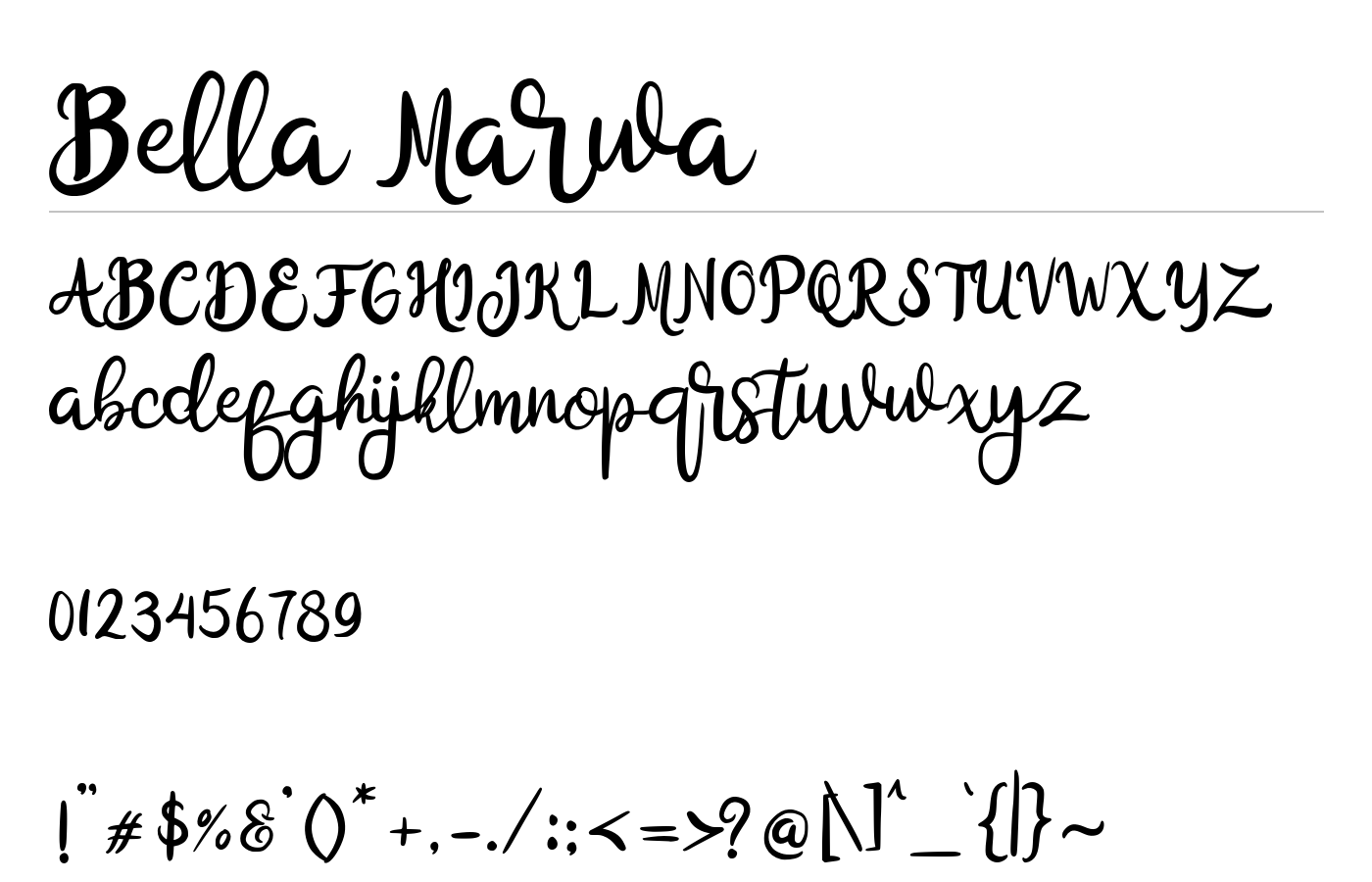
Bella Marwa is a charming script font with a friendly, handwritten feel, featuring smooth, flowing strokes and playful loops that add a touch of whimsy. Its moderately varied weight and elegant curves make it perfect for inviting, personal designs like invitations, branding, or casual headlines. This font brings warmth and creativity to projects, ideal for fashion, lifestyle, or boutique brands seeking a stylish yet approachable look.
Bella Marwa Font
About Bella Marwa Font
| Font family | Bella Marwa Font |
| Designer | Vunira Design |